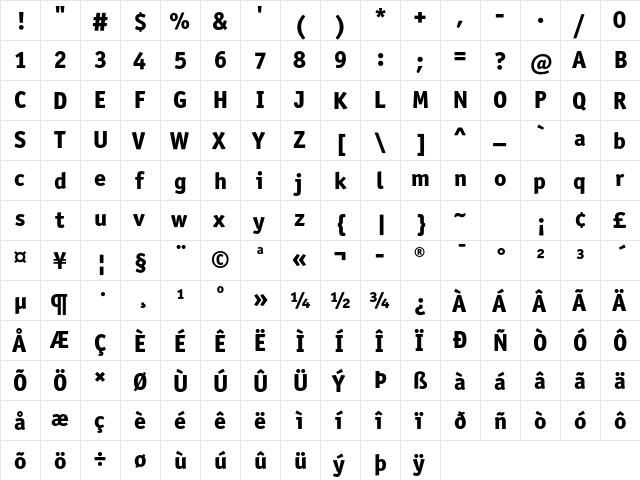
OfficinaSansITCStd ExtraBold
| Designer | Erik Spiekermann and Ole Schaefer |
Design Context for OfficinaSansITCStd Typeface
OfficinaSansITCStd takes a measured approach to typography — its balanced proportions and neutral character make it a reliable workhorse for both digital and print work. The heavy weight commands attention and anchors typographic hierarchies.